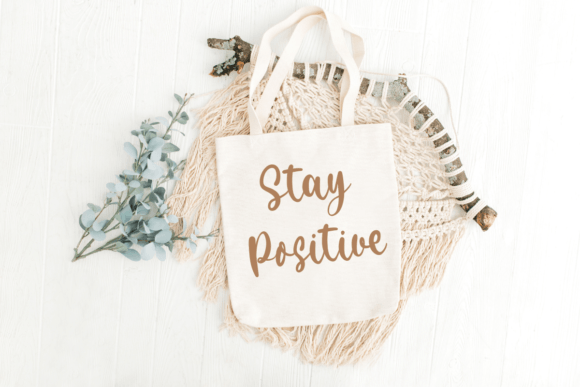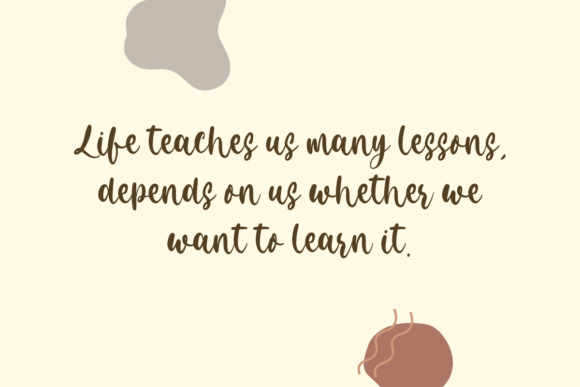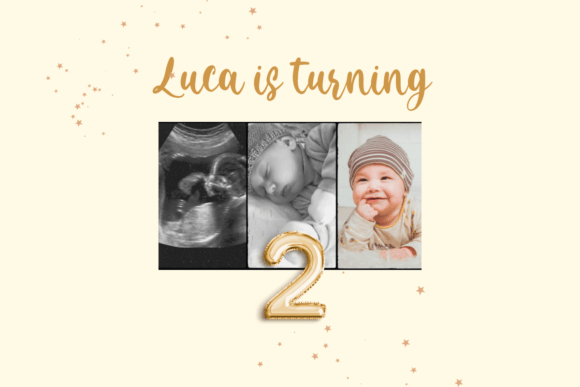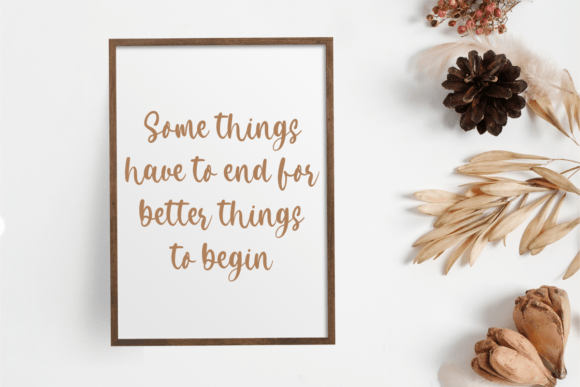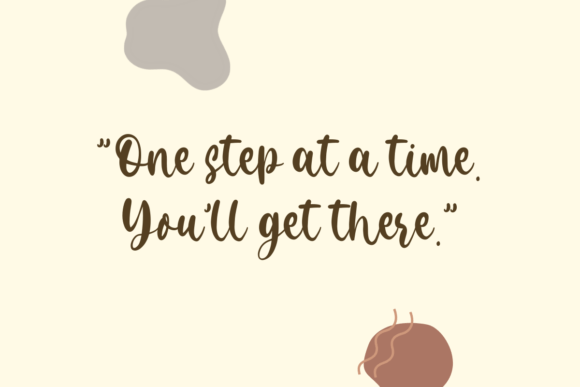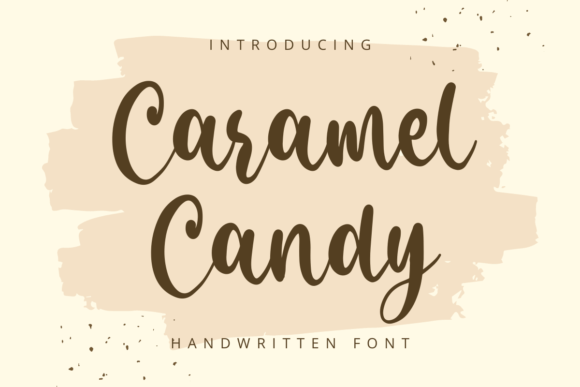
Introducing Caramel Candy Font: The Sweetest Addition to Your Design Collection
Are you on the hunt for a fresh and exciting font to elevate your designs? Look no further than Caramel Candy, a brand-new handwritten font that’s sure to satisfy your creative cravings. This delightful font is perfect for a wide range of design applications, from logos and branding to social media posts, advertisements, and more.
What Makes Caramel Candy Font So Special?
Caramel Candy is a carefully crafted handwritten font that’s designed to bring a touch of sweetness and sophistication to your designs. Its unique, flowing script is reminiscent of a warm, gooey caramel treat – hence the name! The font’s fresh and modern aesthetic makes it an ideal choice for designers and crafters looking to add a bit of whimsy and personality to their work.
Endless Design Possibilities with Caramel Candy Font
One of the best things about Caramel Candy is its incredible versatility. This font can be used for a wide range of design projects, including:
• Logos and Branding: Create a lasting impression with a custom logo that showcases your brand’s personality and style.
• Titles and Headings: Add a touch of elegance and sophistication to your titles and headings.
• Social Media Posts: Make your social media posts stand out with a font that’s sure to grab attention.
• Advertisements: Create eye-catching ads that showcase your products or services in a unique and compelling way.
• Product Packaging: Add a personal touch to your product packaging and make it truly special.
• Product Designs: Use Caramel Candy to create stunning product designs that showcase your brand’s style and personality.
• Labels: Create custom labels that are both functional and visually appealing.
• Photography: Use Caramel Candy to add text and captions to your photos, making them truly unforgettable.
• Special Events: Make your special events, such as weddings and parties, even more memorable with custom signage and decor.
• Web Design: Elevate your website’s design with a font that’s both modern and elegant.
Why Choose Caramel Candy Font?
So, why should you choose Caramel Candy over other fonts? Here are just a few reasons:
• Unique and Fresh: Caramel Candy is a brand-new font that’s sure to make your designs stand out from the crowd.
• Handwritten with Love: This font is carefully crafted with love and attention to detail, ensuring that it looks both natural and elegant.
• Highly Versatile: Caramel Candy can be used for a wide range of design applications, making it a great addition to any design collection.
• Easy to Read: Despite its unique and flowing script, Caramel Candy is incredibly easy to read, making it perfect for body text and captions.
Get Ready to Fall in Love with Caramel Candy Font
If you’re looking for a font that’s sure to capture your heart and elevate your designs, look no further than Caramel Candy. With its unique and fresh aesthetic, endless design possibilities, and highly versatile nature, this font is sure to become a favorite in your design collection. So why wait? Give Caramel Candy a try today and see the difference it can make in your designs!
In conclusion, Caramel Candy Font is an excellent choice for designers and crafters looking to add a touch of sweetness and sophistication to their work. Its unique and flowing script, highly versatile nature, and ease of use make it an ideal font for a wide range of design applications. Whether you’re creating logos and branding, titles and headings, or social media posts and advertisements, Caramel Candy is sure to impress. So go ahead, indulge in this sweet treat, and elevate your designs to the next level!